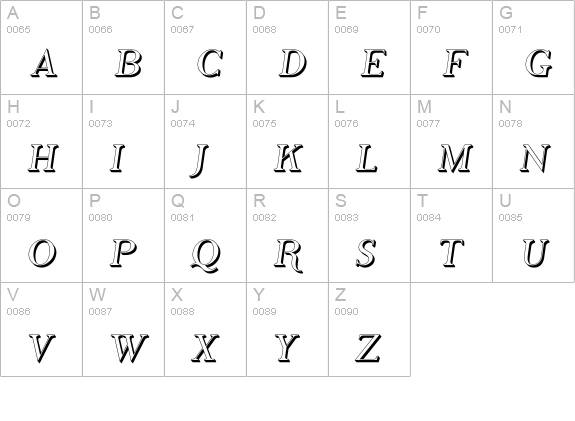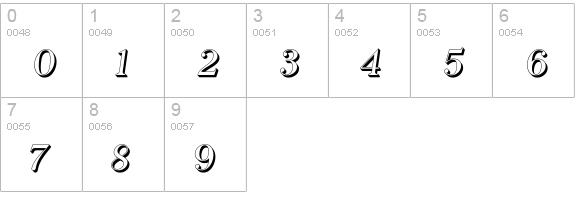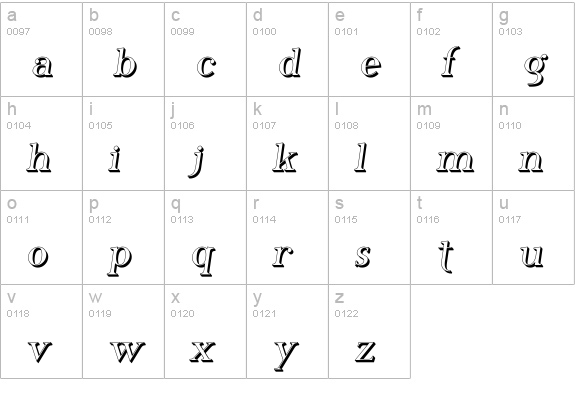
Introducing Phosphorus Hydride, a font that effortlessly combines elegance and modernity, providing a unique visual experience for all your design needs. This font is a true representation of artistic finesse, designed with meticulous attention to detail to enhance your projects with a touch of sophistication. Phosphorus Hydride embraces a sleek and streamlined aesthetic, boasting clean lines and well-defined curves that exude elegance and professionalism. Its versatile nature allows it to effortlessly adapt to various design contexts, making it a perfect choice for both print and digital media. The beauty of Phosphorus Hydride lies in its ability to strike the perfect balance between simplicity and complexity. Each character is meticulously crafted, showcasing a harmonious blend of sharp edges and soft curves, resulting in a visually stunning typography experience that captivates the eye. But what truly sets Phosphorus Hydride apart is its availability as a free font. That's right, this exceptional typeface is freely available to download at FontsMarket.com, providing you with the opportunity to enhance your design projects without any cost barriers. Whether you are a professional graphic designer, a creative artist, or an amateur enthusiast, Phosphorus Hydride offers you the chance to elevate your creations to new heights. With its wide range of weights and styles, you can effortlessly experiment and customize your designs, ensuring that your work stands out from the crowd. So, why settle for ordinary when you can have extraordinary? Download Phosphorus Hydride today from FontsMarket.com and unlock the potential to create visually stunning and captivating designs that leave a lasting impression.